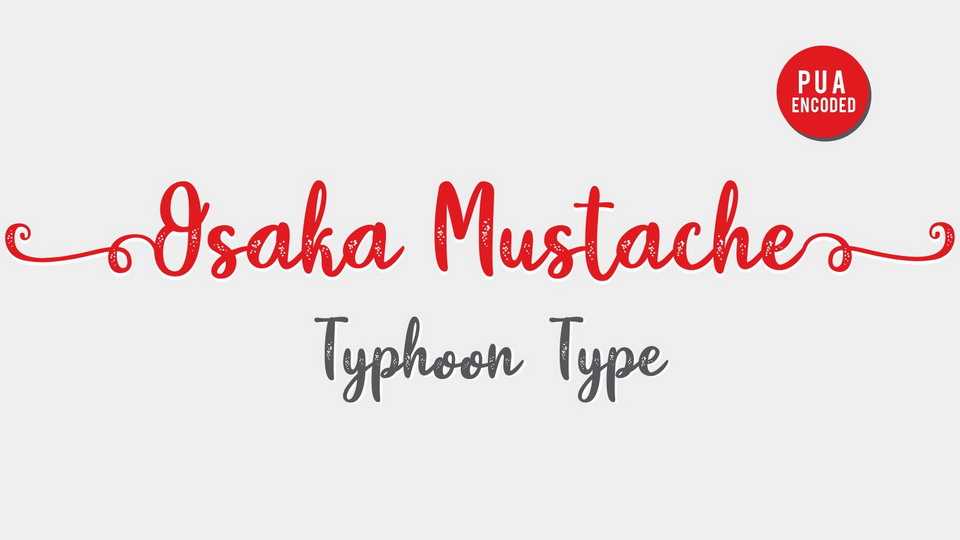
Download Osaka Mustache font, a fancy modern calligraphy typeface. Osaka Mustache script is perfect for logos, name tag, advertising, product packaging, clothing, social media & greeting cards.
Designer: TyphoonType